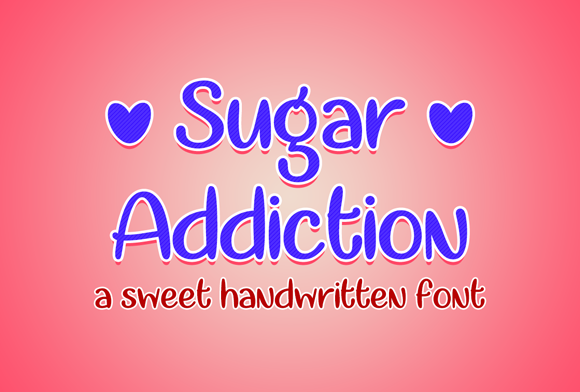
HomeScript FontsSugar Addiction Font Script Fonts Sugar Addiction Font FacebookXPinterestWhatsApp About Sugar Addiction Font The Sugar Addiction is a sweet handlettered font that is great for a variety of projects! DOWNLOAD ON CREATIVE FABRICAThis font is sold and delivered by Creative Fabrica. Font Canyon may earn a commission if you buy through this link. People also explored Ambatah Font Be My Valentine Font Prosciutto Plankiss Font Shailine Wosh Font Hello France Font Cupcake Font Headster Family Font Pretty Girls Font 271 0 TagsSugar Addiction Font Previous articleSanggria FontNext articleLovely Script Font LEAVE A REPLY Cancel reply Comment: Please enter your comment! Name:* Please enter your name here Email:* You have entered an incorrect email address! Please enter your email address here Website: Save my name, email, and website in this browser for the next time I comment. Personal Use Free Aragon Personal Use Free Read more about this font Coffete Personal Use Free Read more about this font Delions Personal Use Free Read more about this font Pretender Personal Use Free Read more about this font BLOG How to Cut Any Font on Cricut: Convert a Font to SVG (Free) Turn any font into a clean SVG so it cuts crisp on Cricut - a quick 3-step workflow using a free font-to-SVG tool. Elegant Wedding Invitation Fonts – Handwritten & Script Fonts Using Fonts in Digital Marketing: Tips to Strengthen Your Brand Identity To increase your work productivity, choose the most readable fonts.